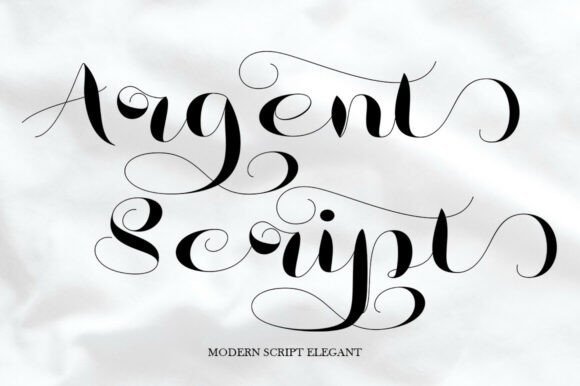
Imagine you’re sitting at your desk, surrounded by papers, pens, and a blank sheet of paper in front of you. You’re brainstorming ideas for a new project, and you need the perfect font to give it that extra oomph. That’s where the Argent Script Font comes in – a beautiful, elegant calligraphy font that combines classic style with modern flair.
With its refined and stylish look, the Argent Script Font is perfect for designers who want to add a touch of sophistication and charm to their projects. Whether you’re creating invitations, labels, or logos, this font is sure to impress. Its smooth, clean, and graceful letterforms make it highly legible, while its luxurious letter connections and flowing curves give it a feminine and glamorous feel.
What makes the Argent Script Font truly valuable is its versatility and flexibility – it comes with alternative styles and stylistic variations, giving you the freedom to craft unique and personalized typography that suits your needs.
Key Features of Argent Script Font
- Unique Characteristics: Argent Script Font features a beautiful, elegant script style with intricate flourishes and connections, perfect for creating a sophisticated and luxurious look in designs.
- Font Weight and Style: Argent Script Font is available in various font weights, including Light, Regular, Bold, and Extra Bold, as well as a script style with a range of opentype features.
- Scalability: The font is highly scalable, allowing it to be used effectively in a wide range of design applications, from small text to large headlines.
Designer Review: Argent Script Font
Overall, I think Argent Script is a beautiful and elegant font, perfect for creating a sophisticated and luxurious feel in your designs. ✨ The connected, cursive script style makes it ideal for invitations, branding, and other applications where you want to convey high-end quality.
The Argent Script font features a range of weights, from light to bold, giving you flexibility to choose the perfect level of opulence for your project. The font is also highly customizable, allowing you to adjust the size, color, and spacing to suit your design needs.
- ✨ Elegant and sophisticated design, perfect for high-end branding and invitations
- ✨ Highly customizable, allowing for flexibility in size, color, and spacing
- ✨ Wide range of weights, from light to bold
- ⚠️ Limited language support, may not be suitable for projects requiring multilingual text
- ⚠️ May not be the best choice for projects requiring a more casual or playful tone
- ⚠️ Some users may find the font too ornate or difficult to read at small sizes
Overall, I think Argent Script is a solid choice for designers looking to add a touch of luxury to their projects. While it may have some limitations, its elegance and sophistication make it a great option for the right kind of design.
The Argent Script Font is ideal for creating elegant and sophisticated designs, such as:
– Luxury branding and packaging
– High-end marketing materials
– Fine art and illustration
To get the most out of the Argent Script Font, try:
– Combining it with other elegant fonts for a sophisticated look
– Using it in conjunction with high-end graphics and design elements
– Experimenting with different font sizes and colors to create visual interest